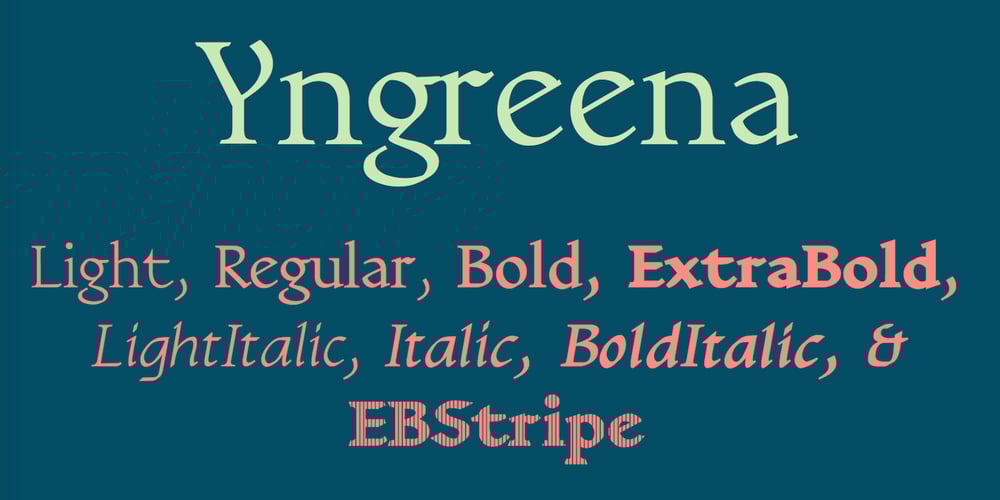
Yngreena
Yngreena font
Yngreena Font Family was designed by Robert Schenk and published by Ingrimayne Type. Yngreena contains 15 styles and family package options. Yngreena is a serifed typeface with calligraphic origins. In updating it in 2011, I began to add alternative letters and reached the point where it made sense to create an alternative family of faces rather than include all the alternatives as part of an OpenType font. The letters K, R, V, W, Y, f, g, k, t, v, and w are tamer in Yngreena Alt. As a result, though it is still a decorative text face, Yngreena Alt is better suited for lengthier blocks of text than is the original Yngreena face.